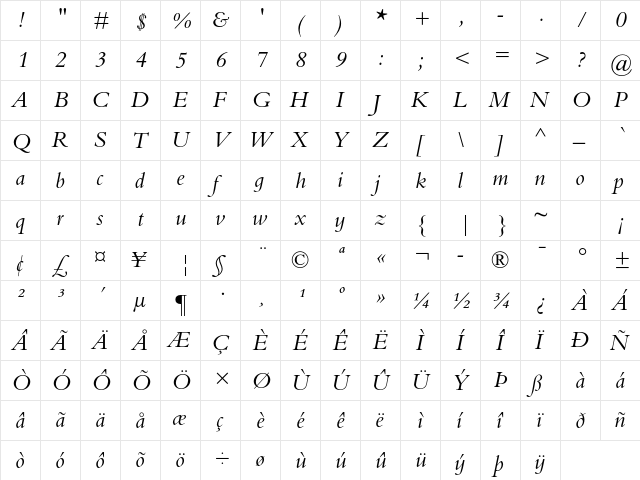
Bembo Infant MT Std Italic
Design Context for Bembo Infant MT Std Typeface
Bembo Infant MT Std is a composed and adaptable typeface that performs quietly and consistently across a wide range of design contexts. The slanted form adds forward momentum and visual energy.